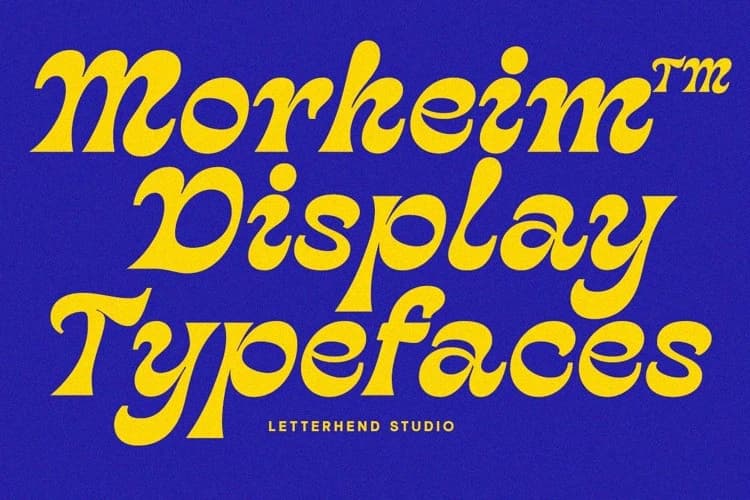
Morheim Display Typeface
Morheim Display Typeface feels bold, juicy, and full of attitude—like a splash of golden type on a deep night backdrop. With its chunky curves, soft serif edges, and slightly groovy rhythm, this typeface brings a playful retro punch while still looking clean and confident.